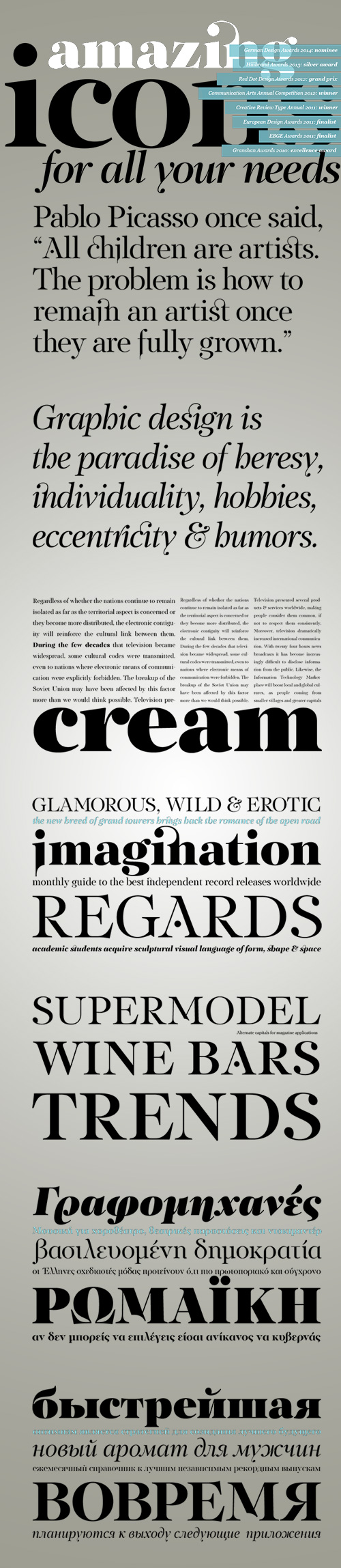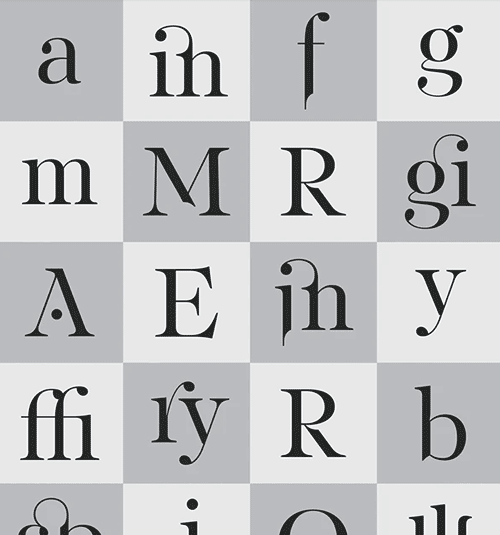
PF Regal Display Pro - 10 Styles Font Family $625
- The objective of this project was to design a new typeface series for Grazia magazine. First published in 2010, Regal was later revamped and redesigned for commercial use, evolving into a type system with five related superfamilies. According to the brief, this typeface had to be elegant, luxurious, sexy, vibrant, reflect the female sensitivity and take into consideration a modern woman who is more proud, more connected, more spontaneous, open-minded and eager to try a whole host of new products and services. Targeting this consumption-wise and well-educated woman, required a typeface that is not strictly based on classic forms, but incorporates several distinct elements that express a modern woman’s personality and the products she consumes.